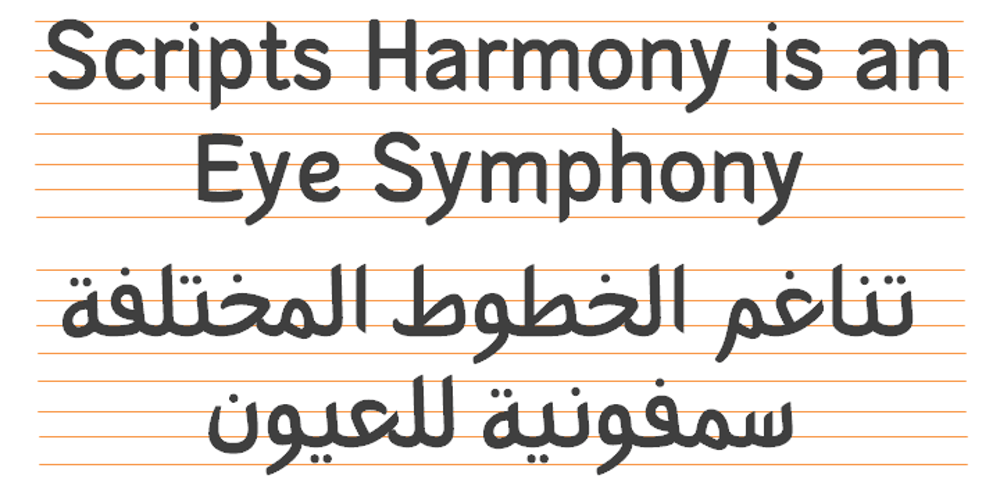
Arabetics Symphony Font Family was designed by Saad D. Abulhab and published by Arabetics. Arabetics Symphony contains 5 styles and family package options. Arabetics Symphony is a Sans Serif Latin typeface with a comprehensive support for the Arabetic scripts, including Quranic texts. It is designed with a uniform glyph thickness and weight throughout, using a combination of simplified and clear open lines and curves and plenty of spikes and visual hints to compensate for the missing Latin serifs or traditional cursive Arabic calligraphic influence. This type family is suitable for both text and display applications. Additional Latin spacing is added to match an overall open-looking Arabic and is further maintained by a careful implementation of a typical Latin font kerning process. The design of this font family, including metrics and dimensions, was intended to make its Latin harmonize with other Arabetics foundry fonts. Arabetics Symphony fully supports MS 1252 Western and 1256 Arabic code pages, in addition to all the transliteration characters required by the ALA-LC Romanization tables. Users can either select an accented character directly or form it by keying the desired combining diacritic mark following an unaccented character. For Arabic, it fully supports Unicode 6.1, and the latest Arabic Supplement and Extended-A Unicode blocks. The Arabic design of this font family follows the Mutamathil Taqlidi design style with connected glyphs, emphasizing vertical strokes to bring added harmony, and utilizing slightly varying x-heights to match that found in Latin. The Mutamathil Taqlidi type style uses one glyph for every basic Arabic Unicode character or letter, as defined by the Unicode Standards, and one additional final form glyph, for each freely-connecting letter of the Arabic cursive text. Arabetics Symphony includes the required Lam-Alif ligatures in addition to all vowel diacritic ligatures. Soft-vowel diacritic marks (harakat) are selectively positioned with most of them appearing on similar high and low levels—top left corner—, to clearly distinguish them from the letters. Tatweel is a zero-width glyph. Keying the “tatweel” key (shft-j) before Alif-Lam-Lam-Ha will display the Allah ligature. Arabetics Symphony includes both Arabic and Arabic-Indic numerals, in addition to generous number of punctuation and mathematical symbols. Available in both OpenType and TrueType formats, it includes two weights, regular and bold, each has normal, Italic, and left-slanted styles.